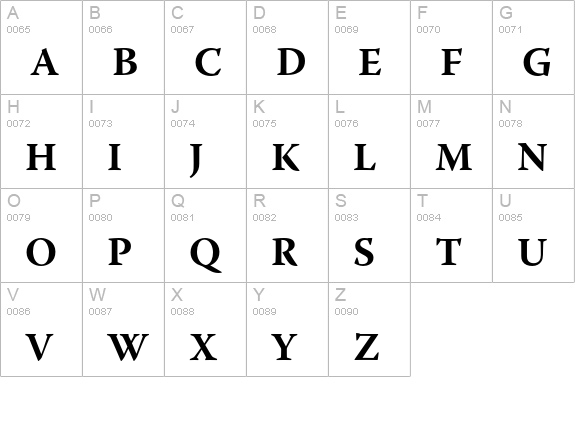
Warnock Pro Bold is a strong, high-contrast variant in the Warnock typeface family \xE2\x80\x94 well suited to headlines, attention-grabbing titles, and strong calls-to-action.
Warnock Pro Bold is a versatile and powerful font that exudes confidence and professionalism. With its bold and commanding presence, this font is perfect for making a bold statement in any design project. Whether you're creating eye-catching posters, attention-grabbing advertisements, or standout headlines, Warnock Pro Bold will ensure that your message is delivered with impact. This font boasts a unique combination of elegance and strength, making it suitable for a wide range of applications. Its strong, thick strokes demand attention, while its refined details add a touch of sophistication. The well-balanced letterforms create a harmonious flow, ensuring readability and legibility across various sizes and mediums. One of the standout features of Warnock Pro Bold is its versatility. It effortlessly adapts to different design styles, seamlessly blending into both modern and traditional layouts. The font's timeless appeal ensures that it remains a reliable choice for designers looking to make a lasting impression. What makes Warnock Pro Bold even more enticing is that it is freely available to download at FontsMarket.com. This means that you can harness the power of this exceptional font without any cost. FontsMarket.com offers a wide range of high-quality fonts, and Warnock Pro Bold is a standout addition to their collection. Whether you're a professional designer or an amateur enthusiast, Warnock Pro Bold is a font that will elevate your designs to new heights. Its bold and confident demeanor, combined with its versatility and availability, make it a must-have in your font library. So don't miss out on the opportunity to download Warnock Pro Bold for free at FontsMarket.com and take your design projects to the next level.